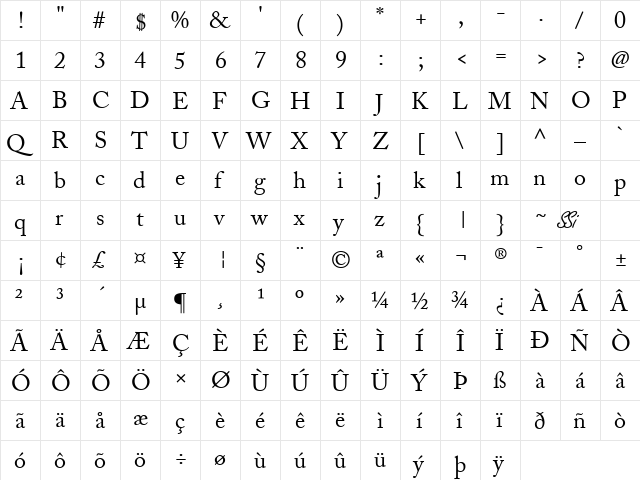
Caslon SSi Regular
Design Context for Caslon SSi Typeface
Caslon SSi takes a measured approach to typography — its balanced proportions and neutral character make it a reliable workhorse for both digital and print work.